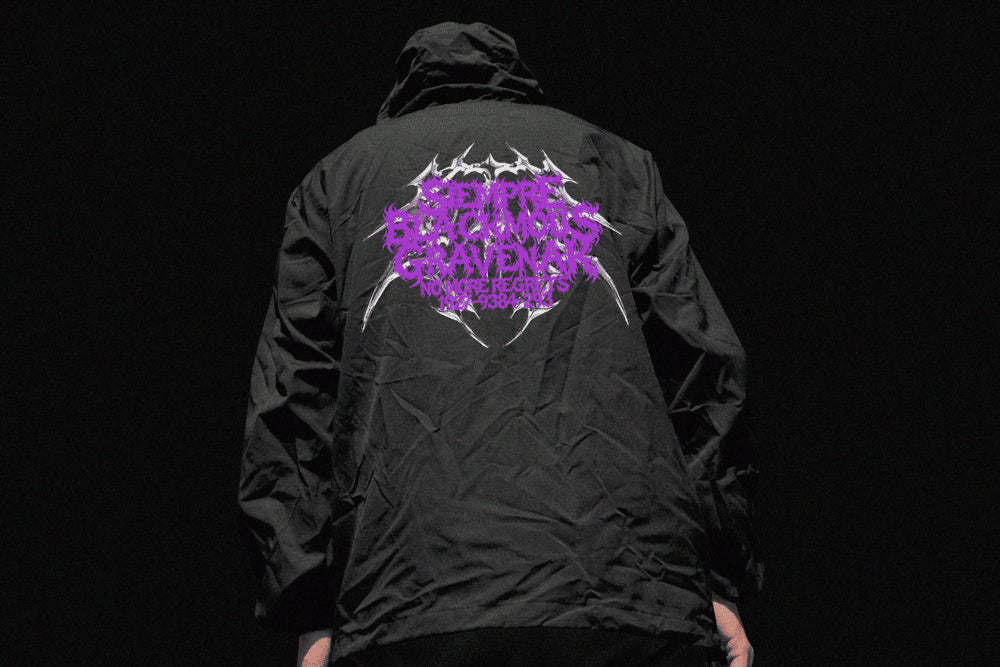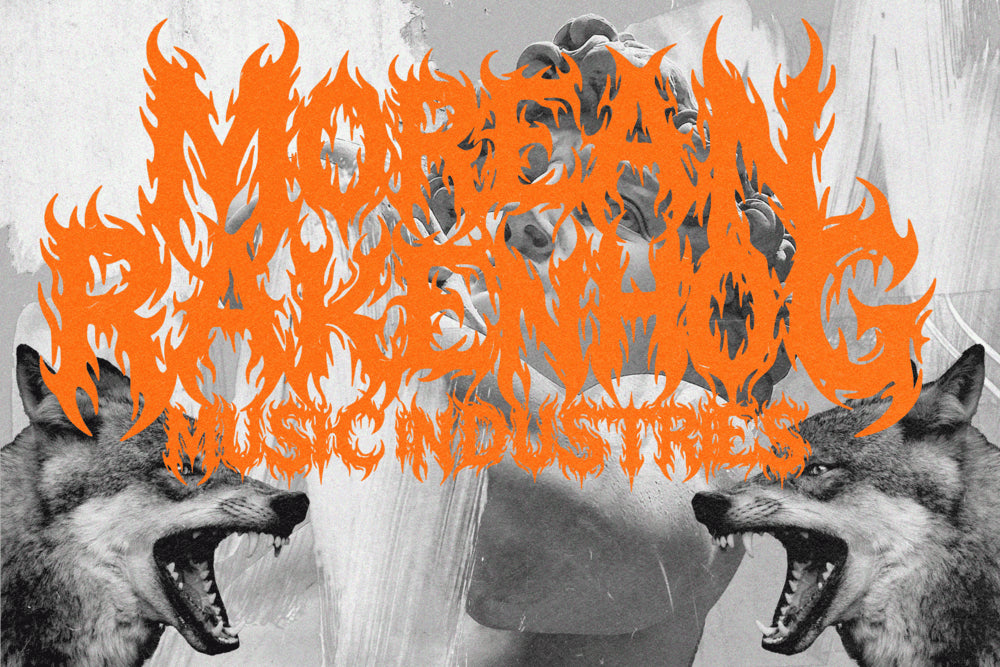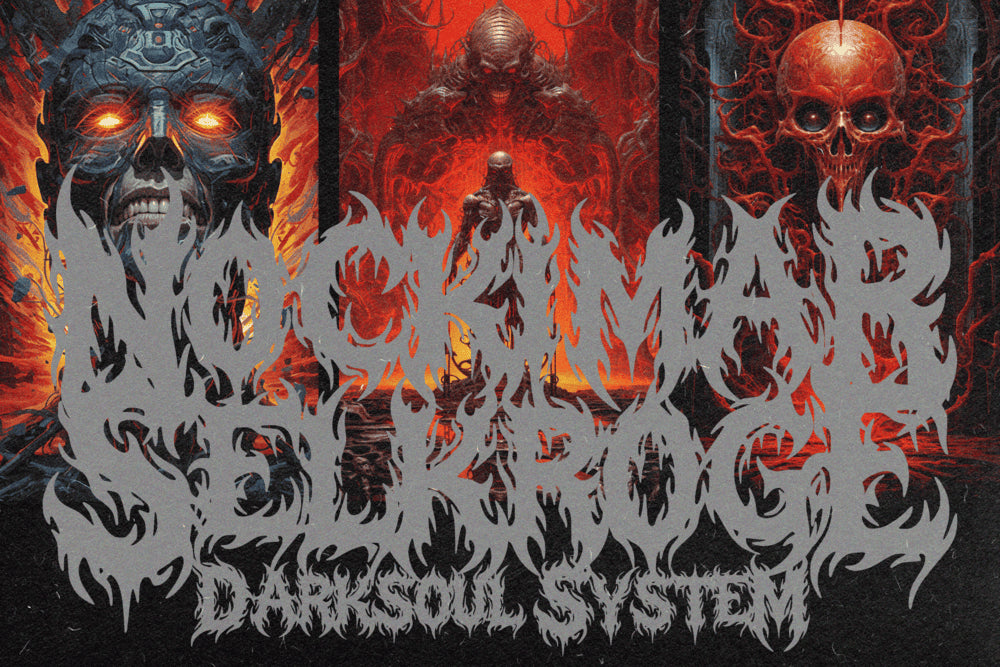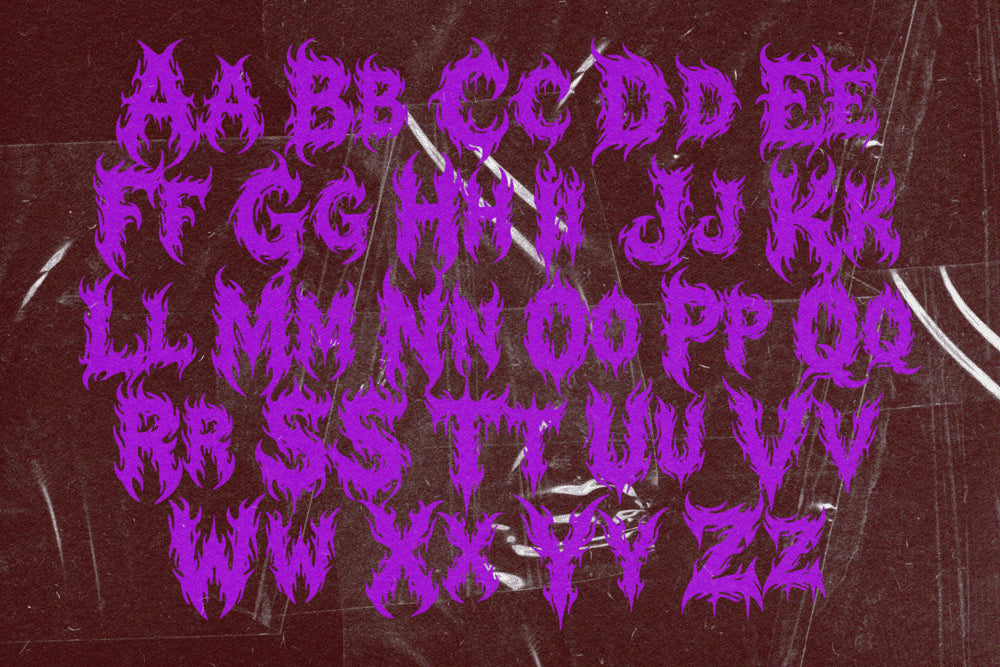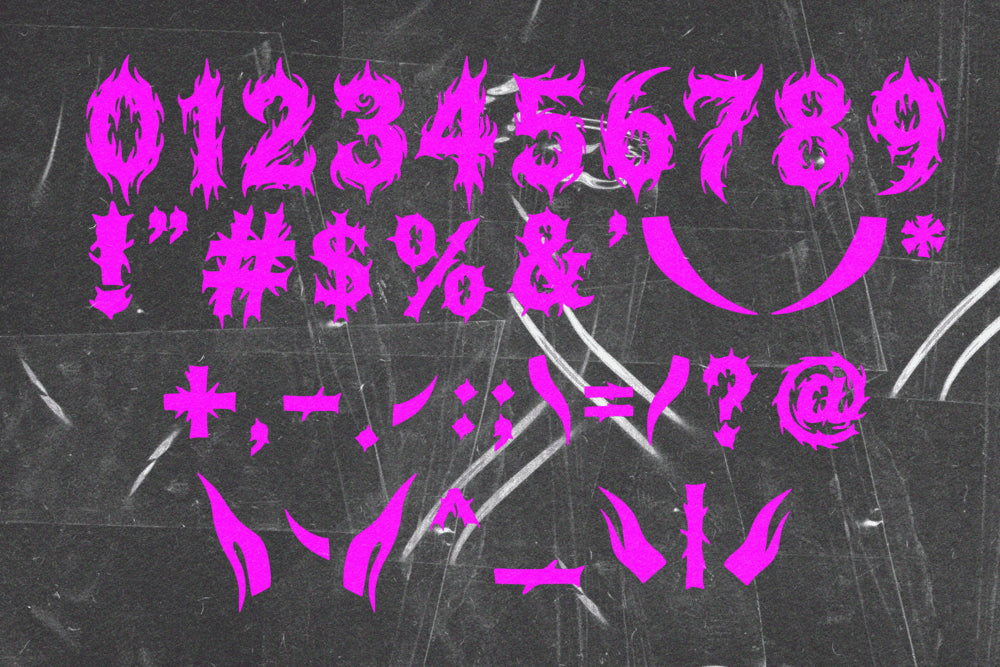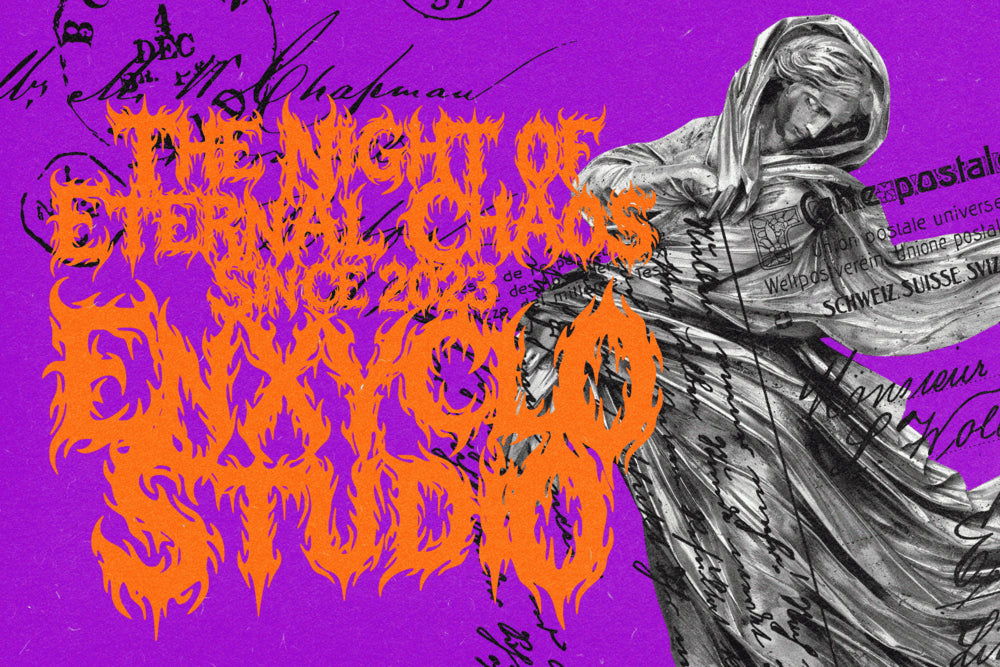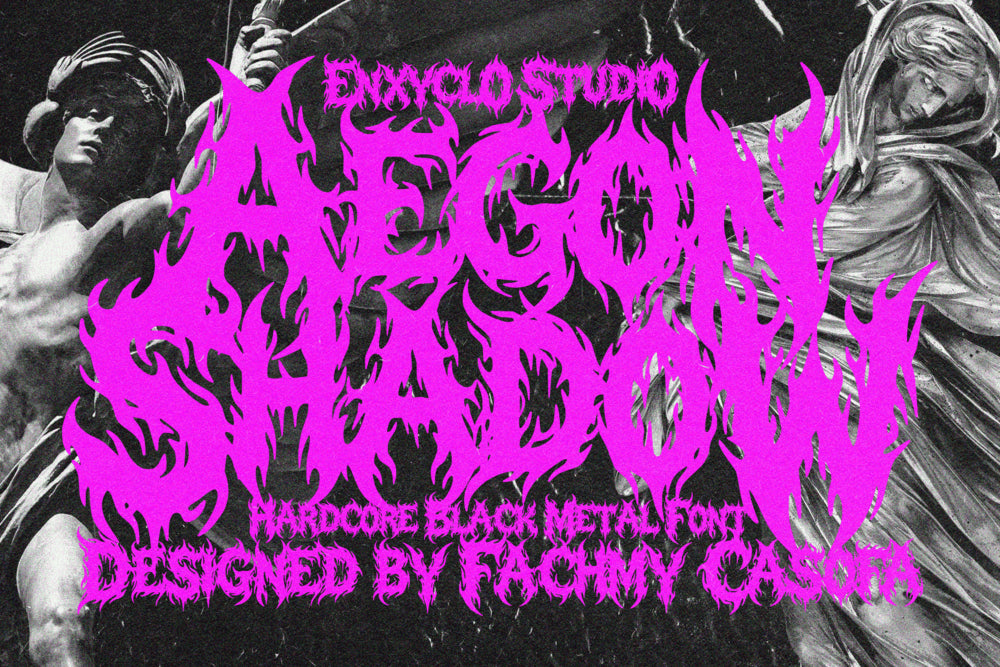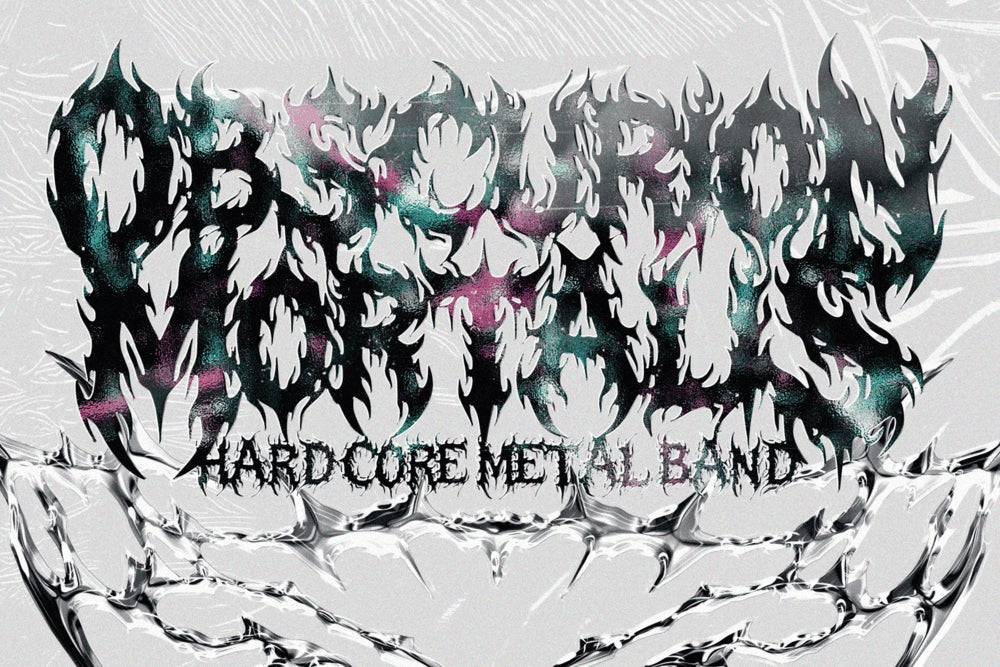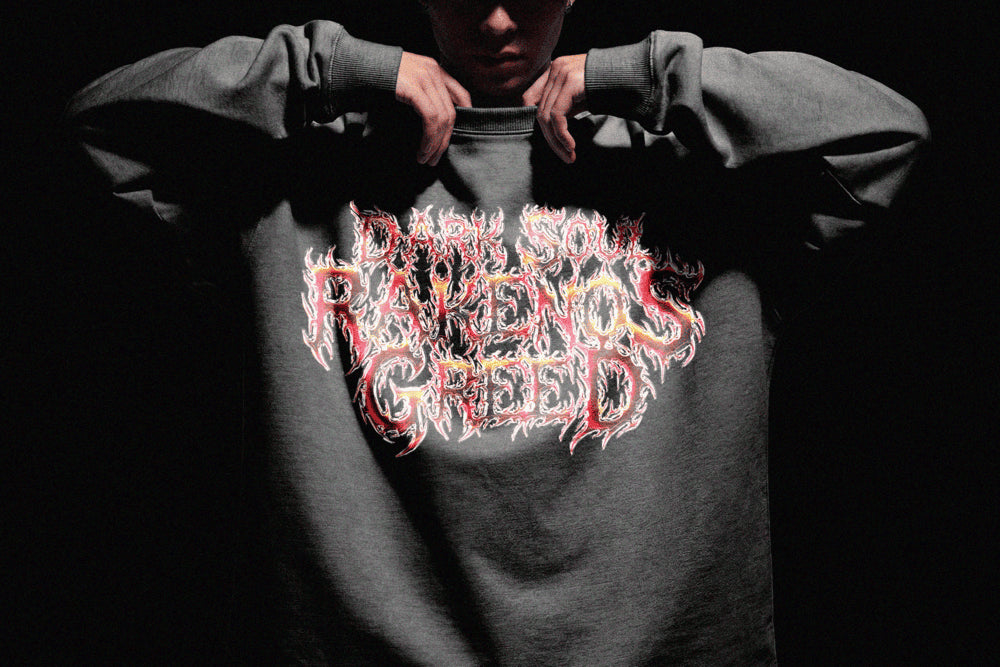
AEGON SHADOW — Hardcore Black Metal Font
AEGON SHADOW is a modern timeless hardcore black metal font forged for creators who thrive in the darkest corners of extreme music and uncompromising visual expression. Inspired by the savage energy of black metal, death metal, heavy metal, hardcore, thrash metal, and underground rock, this typeface captures the spirit of rebellion through sharp, scratchy letterforms that feel brutal, aggressive, and unmistakably powerful. Every character carries the intensity of distorted guitars, relentless drums, and raw artistic freedom.
Built with rough textures, tribal-inspired strokes, and chaotic silhouettes, AEGON SHADOW embodies the visual language of infernal aesthetics and extreme culture. Its jagged forms evoke the atmosphere of abandoned cathedrals, underground venues, and dark forests where metal legends are born. The font balances handcrafted imperfection with bold structure, creating a striking typeface that feels authentic, fearless, and alive. Whether you’re creating visuals for metalcore, hardcore, death metal, or black metal, its commanding presence leaves an unforgettable impression.
AEGON LEGACY — Hardcore Black Metal Font is a modern typeface designed for extreme music creators, featuring sharp, scratchy letterforms that reflect the intensity of black metal, death metal, and hardcore genres. With rough textures and tribal-inspired strokes, this font captures the essence of rebellion and extreme culture through its bold and chaotic design.